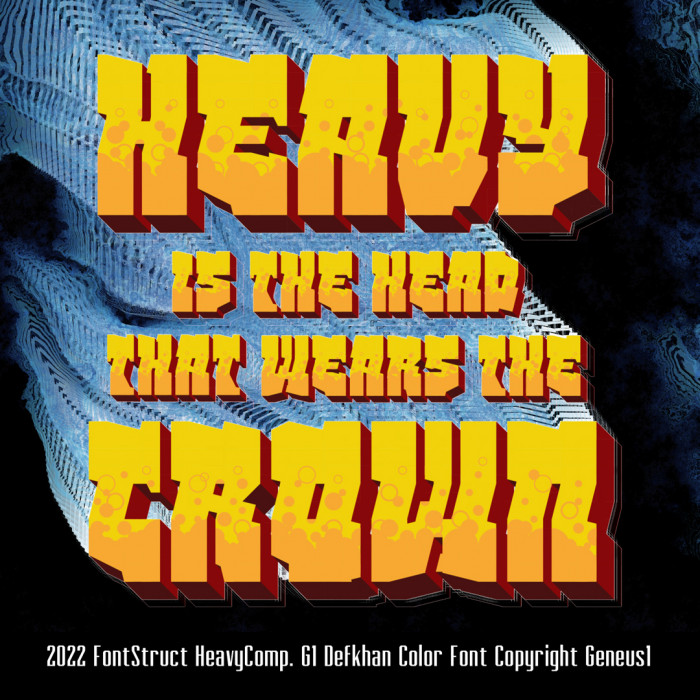
• G1 Defkahn. A somewhat readable modular graffiti font colored over four layers. Independent bubble fills on upper and lowercase sets. Heavycomp entry #2.
Amazing work, it's like a western font distorted into graffiti. Great colors.
The colors and layers compliment each other so well
The last fonts in a Comp are always the best ones. This is really charming, Master!
Excellent chunky 3D graffiti letterforms with bubble fill as the cherry on the cake.
why was the first thing i thought when i saw this was "subway surfers"
Love it! So rare to see a graffiti font that isn't cheesy.
It looks as cheese
that soda effect and that graffiti feeling...